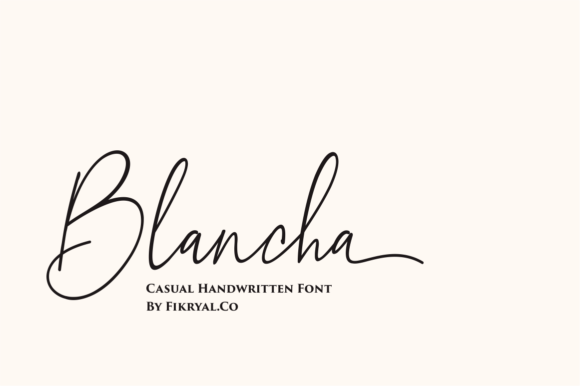
Introducing Blancha Font - The Epitome of Elegance and Charm
Journey into the realm of exquisite typography with Blancha Font, a script font that exudes sweetness, friendliness, and a touch of coolness. Crafted by the talented Fikryal Studio, Blancha is an artistic marvel that captures the essence of modern calligraphy, leaving an indelible mark on your designs.
Unleash your creativity and let Blancha's graceful curves and impeccable flow transport you to a world of elegance and charm. Its modern aesthetic is a breath of fresh air, perfect for adding a touch of sophistication to your projects.
Blancha's versatility knows no bounds. Whether you're a seasoned designer or just starting, this font is your perfect companion. Its user-friendly nature makes it accessible to all, allowing you to effortlessly create stunning designs with minimal effort.
Indulge in the beauty and charm of Blancha Font, and witness the transformative power of typography. Its ability to elevate your designs is undeniable, taking your projects to new heights of elegance and sophistication.